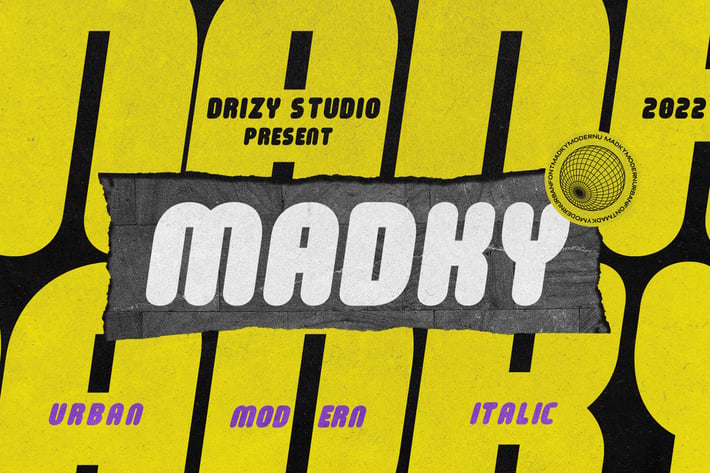
Madky - Modern Urban Font
Madky is a Modern Urban Font from Drizy studio. Offering all the basic styles you will need especially for urban theme project.
Madky Features:
All Caps
Multilinguals
Alternates